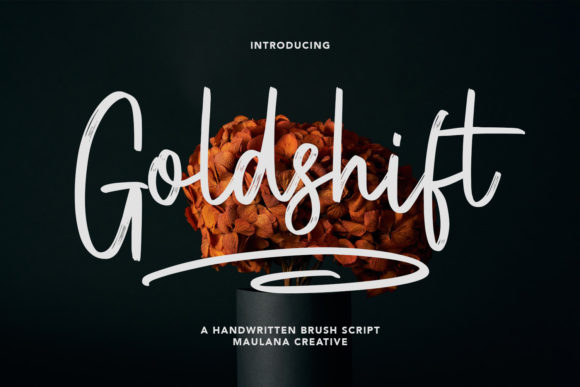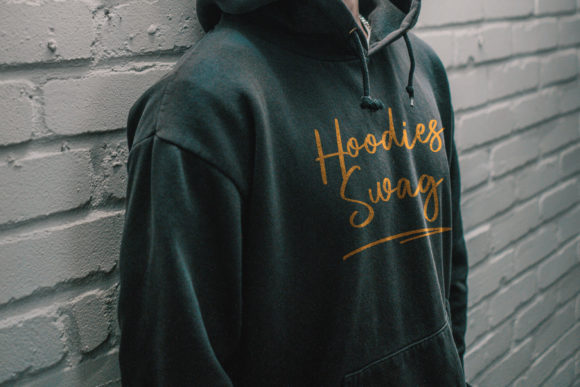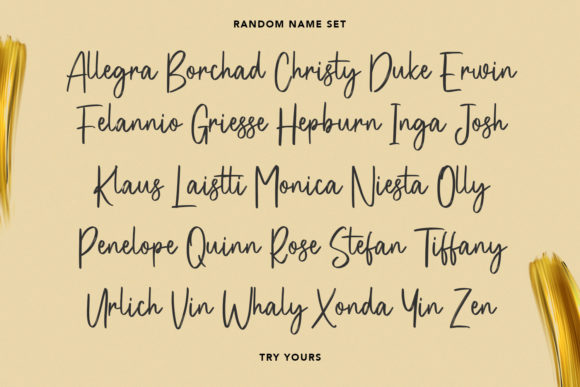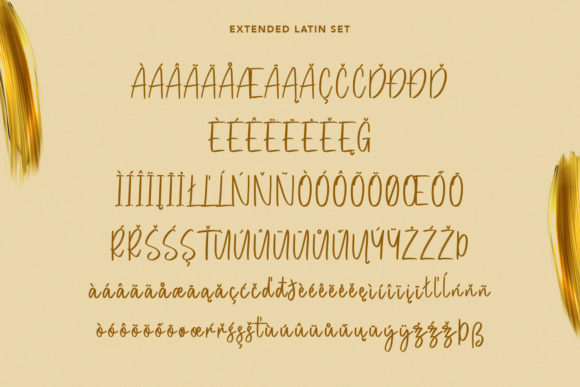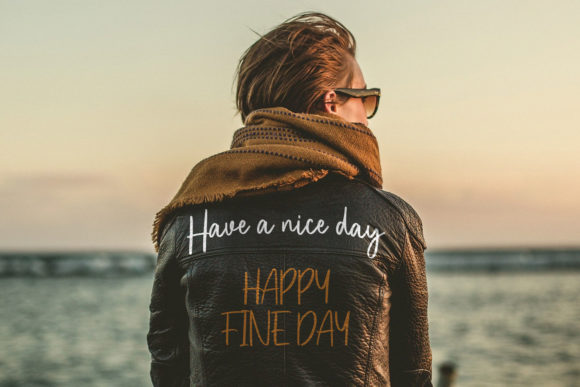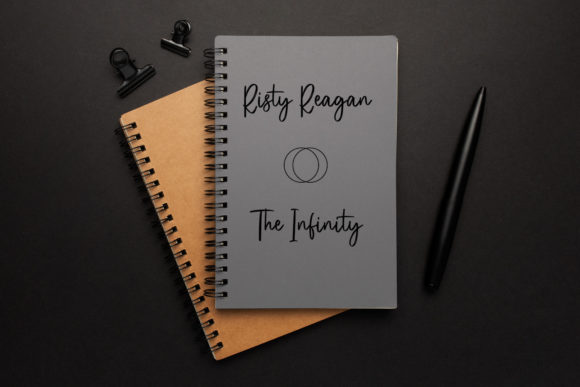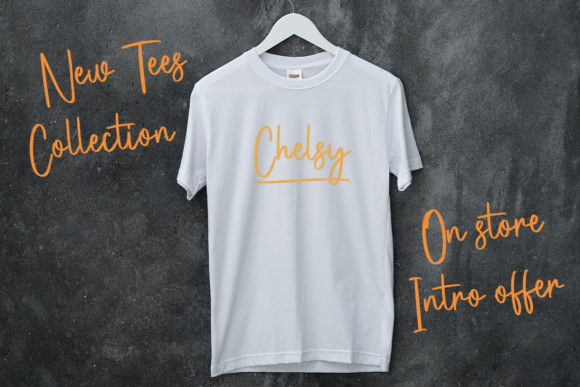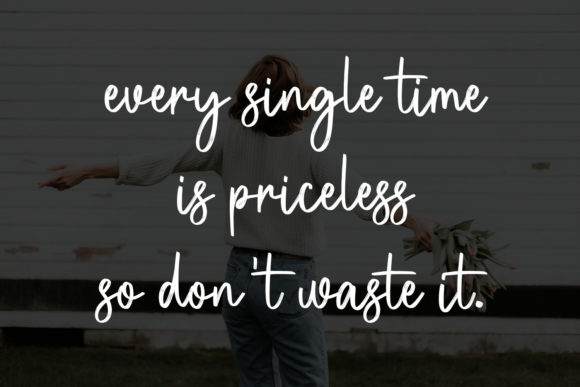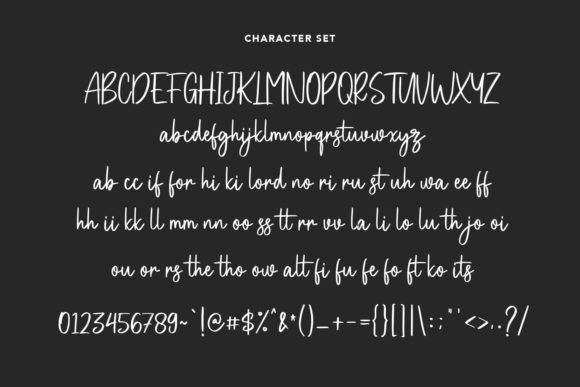
Goldshift Font
About Goldshift Font
Goldshift is a cool and relaxed brushed handwritten font. It looks beautiful on a variety of designs requiring a personalized style, such as wedding invitations, thank you cards, weddings, greeting cards, logos and so on.